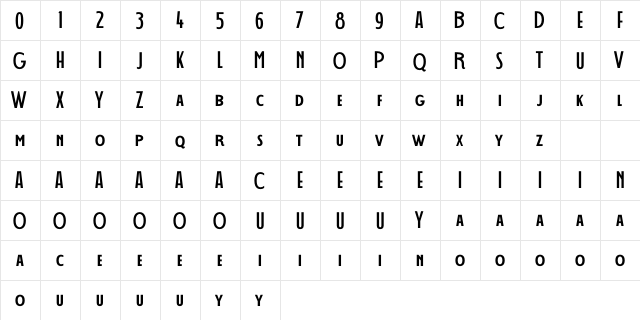
Decohead FREE Regular
Design Context for Decohead FREE Typeface
Decohead FREE takes a measured approach to typography — its balanced proportions and neutral character make it a reliable workhorse for both digital and print work.